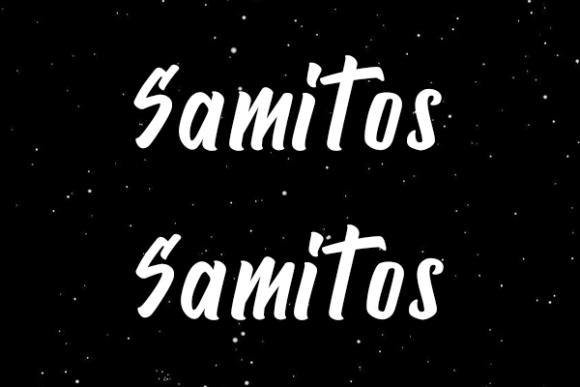
Samitos Font
About Samitos Font
Samitos stands out as the optimal choice for crafting eye-catching logos, establishing strong branding, and bringing quotes to life. Each letter in this font boasts a unique and beautiful touch, contributing to the overall aesthetic appeal and making your design truly stand out.
The distinctive feature of Samitos lies in its individuality; each letter is crafted with meticulous attention to detail, ensuring that every element of your design carries a special and visually appealing character. Whether you’re creating a memorable logo, defining your brand’s identity, or incorporating impactful quotes into your designs, Samitos is designed to elevate and enhance every aspect.
One notable advantage of Samitos is its PUA encoding, allowing easy access to a plethora of amazing glyphs and ligatures. This feature enhances the flexibility of the font, providing you with a wide range of design options and allowing you to seamlessly incorporate unique and artistic elements into your projects.
Envision the impact of Samitos in your designs – from a captivating and memorable logo that leaves a lasting impression to cohesive branding materials that communicate a distinct identity. The font’s versatility extends to the realm of quotes, where each letter contributes to the overall visual appeal and message delivery.
In conclusion, Samitos is more than just a font; it’s a design asset that adds a touch of uniqueness and beauty to your creations. Elevate your logos, branding, and quotes with the distinctive and visually captivating elements of Samitos. Let this font be the key to unlocking a world of creative possibilities, making your designs not only eye-catching but also memorable and impactful.